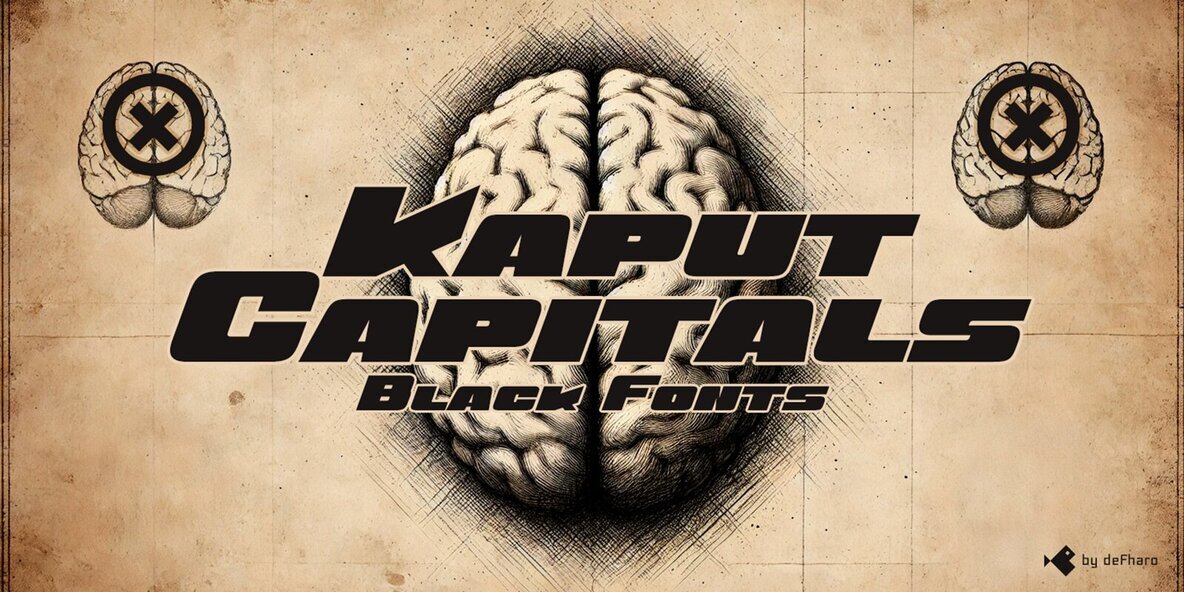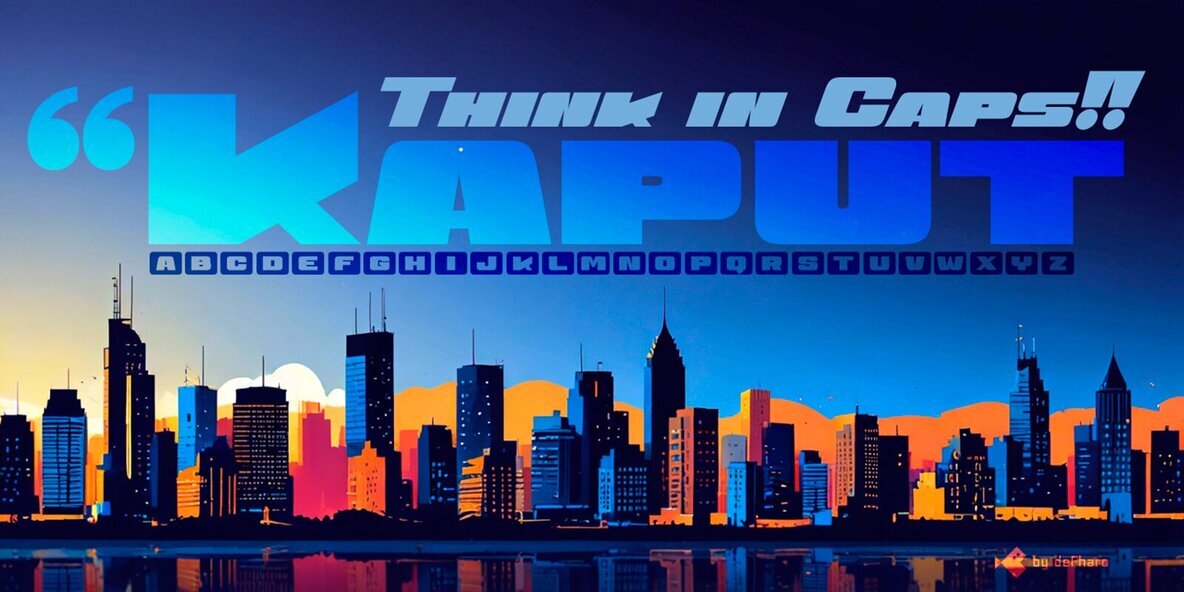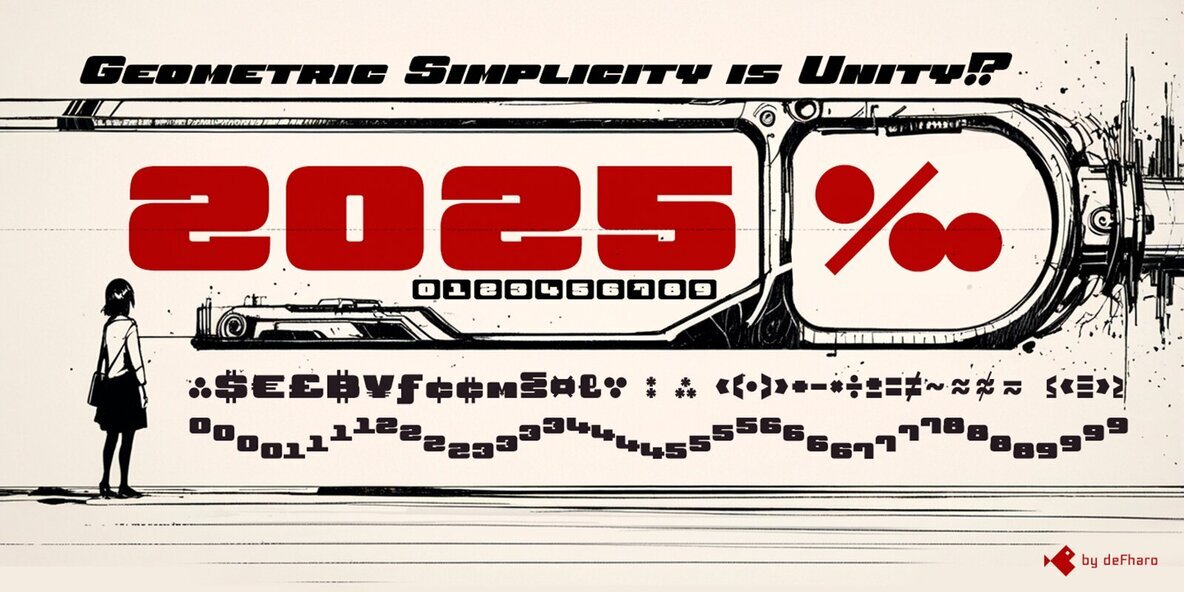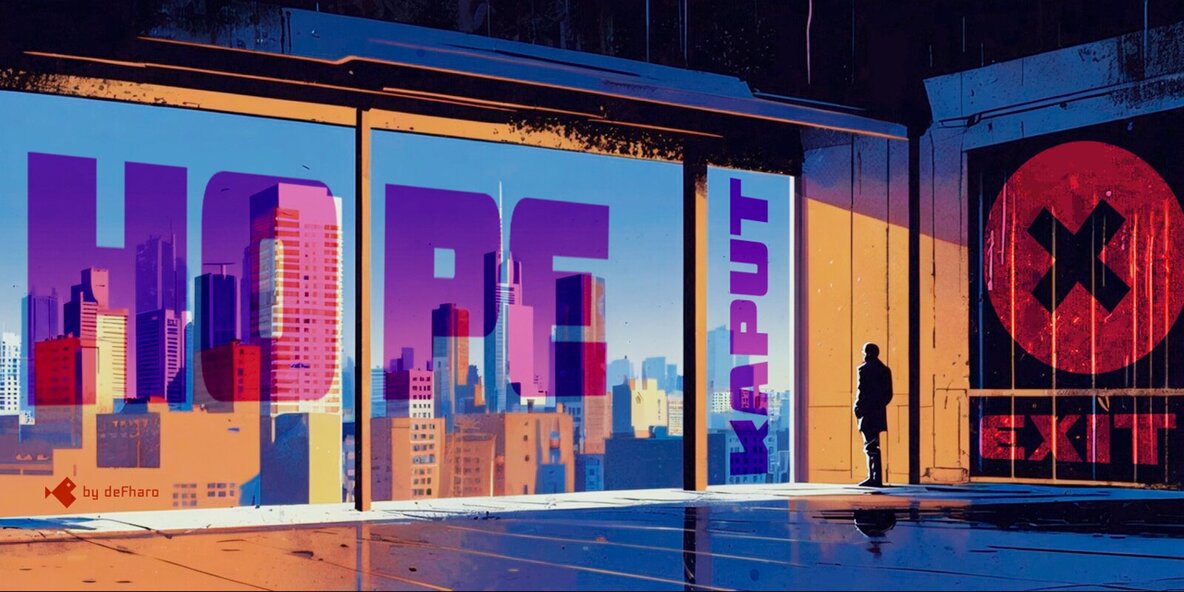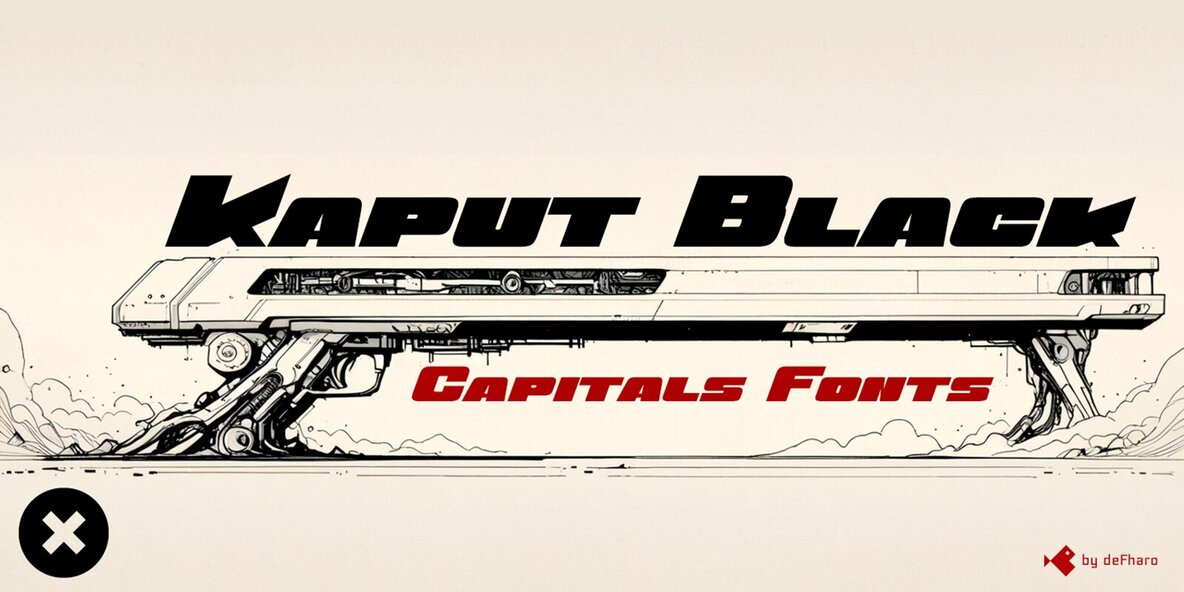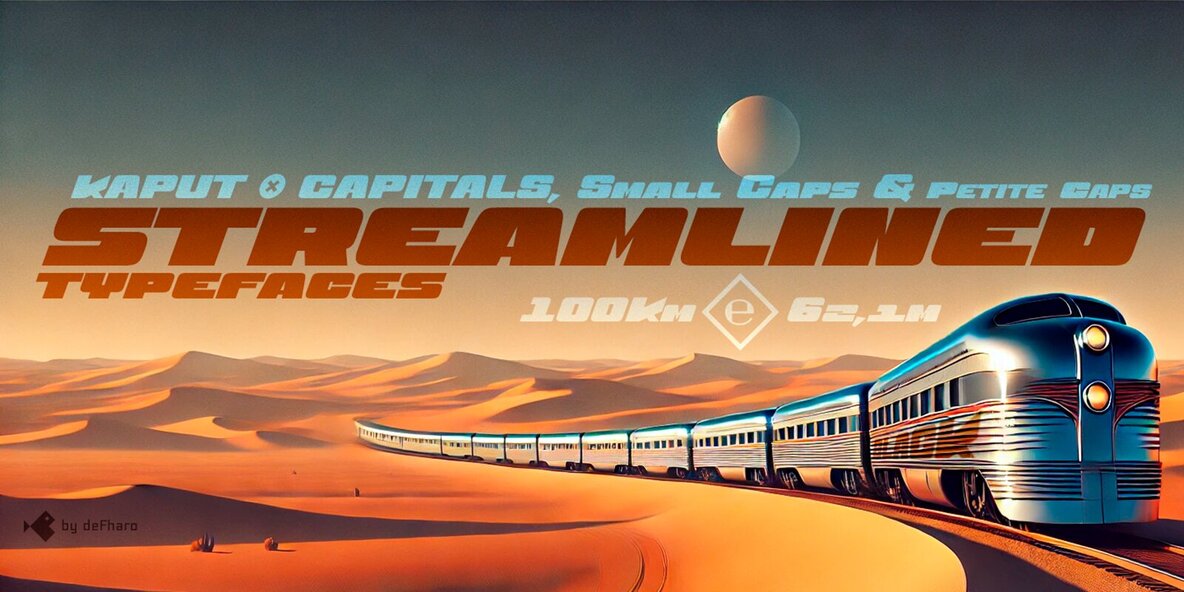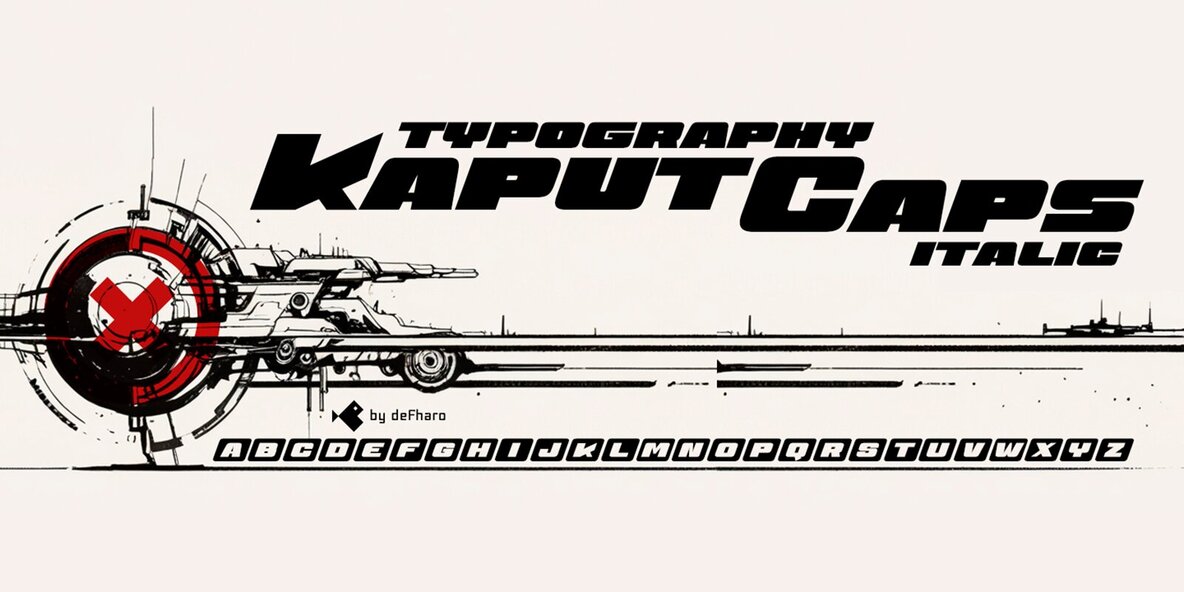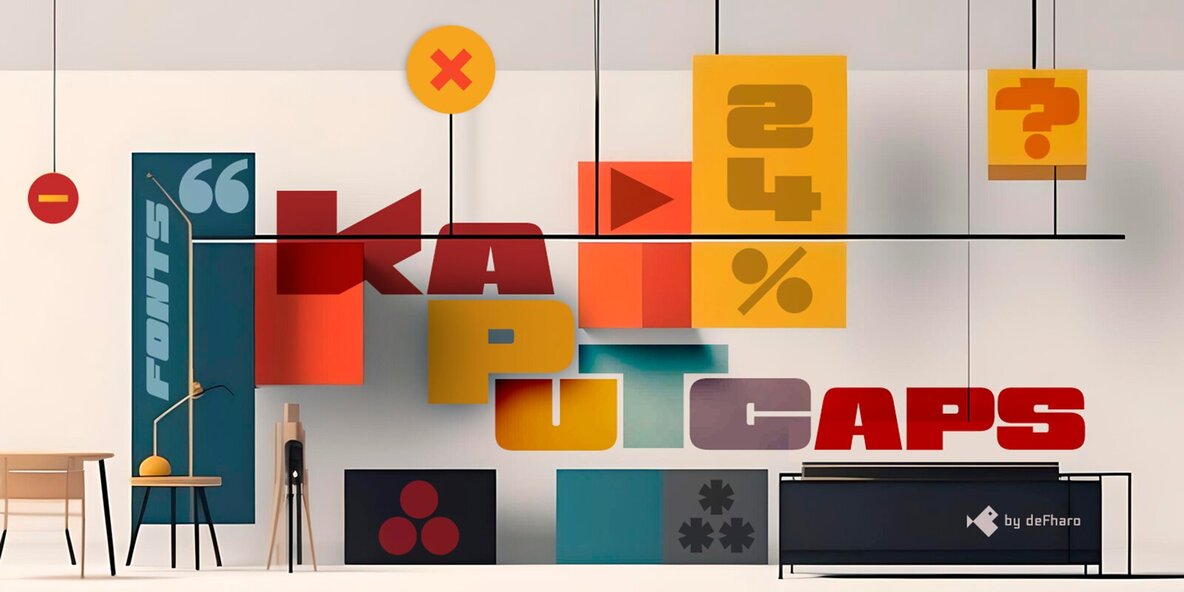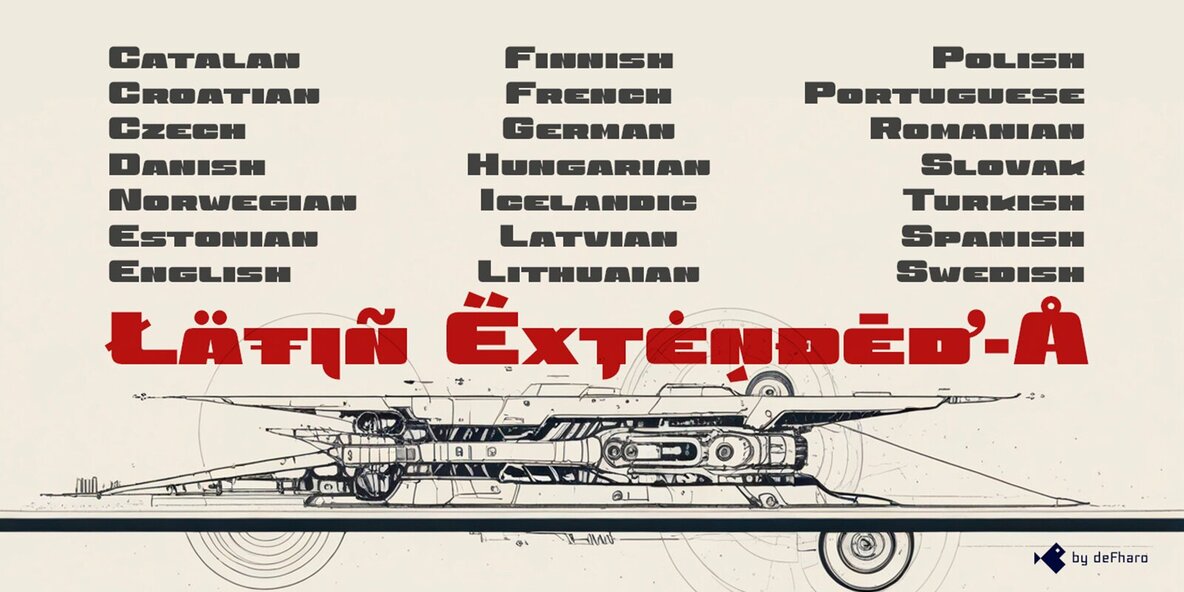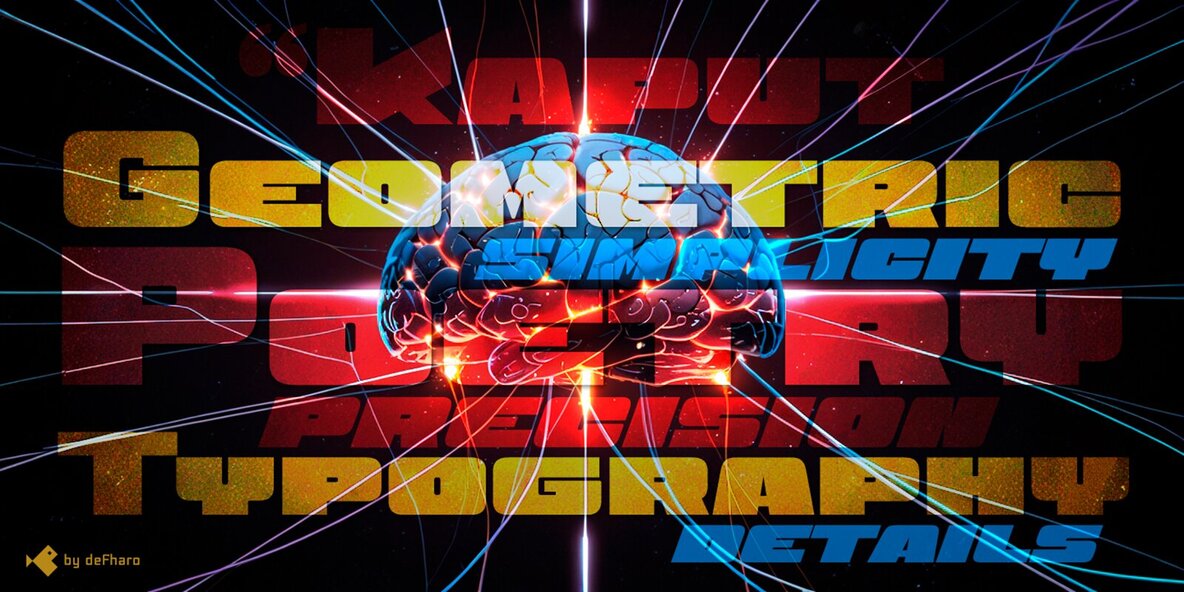
Kaput Black Font
Kaput Black
Kaput Black Italic
Kaput Black, a distinct heavy uppercase typeface, is crafted to deliver striking titles and impactful visual communication. Exhibiting a flawless balance of strength and elegance, Kaput Black boasts a bold, semi-expanded design that remains spectacularly legible. The thick lines and pronounced contrasts not only capture attention but also create a harmonious feel, thanks to meticulous metrics and kerning.Unleash the Power of Kaput Black
Versatile Style and Features